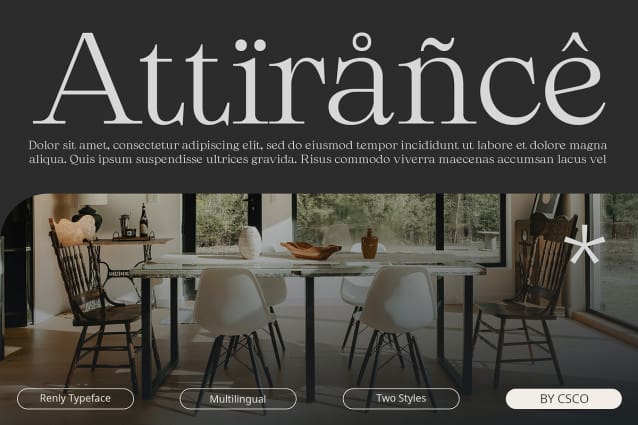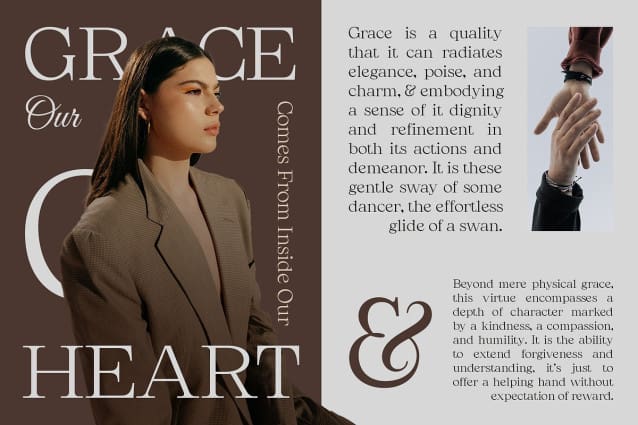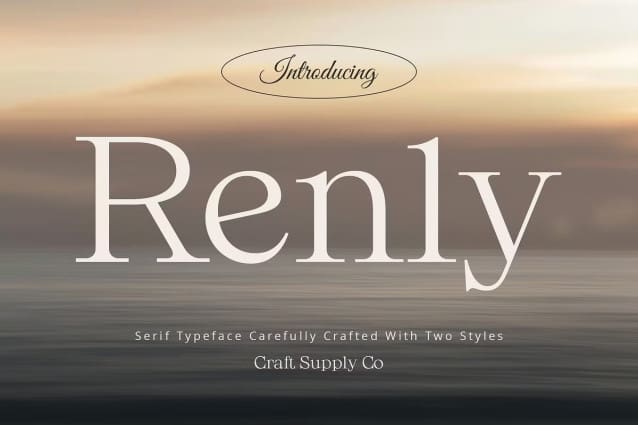
Renly Font
Renly Font: Elegant Serif with High Contrast Renly Font embodies modern elegance with its high-contrast serif design. The sharp contrast between thick and thin strokes creates a striking visual appeal.
Sleek and Contemporary Visuals This font exudes a sleek and contemporary aesthetic, perfect for projects that demand a modern touch. Its clean lines and refined details give it a sophisticated look.
Feminine Charm with a Modern Twist This font strikes the perfect balance between feminine charm and modernity. Its graceful curves and refined serifs add a touch of femininity, while its modern design ensures relevance in today’s design landscape.
Versatile for Various Designs From branding to editorial design, Renly Elegant Serif font is versatile for a wide range of applications. Whether used in headlines or body text, its modern elegance elevates the visual appeal of any design.
Modern Elegance in Serif This font offers a modern serif typeface with high contrast and an elegant feminine look. Its sleek and contemporary visuals make it suitable for a variety of design projects, adding sophistication and style to any composition.